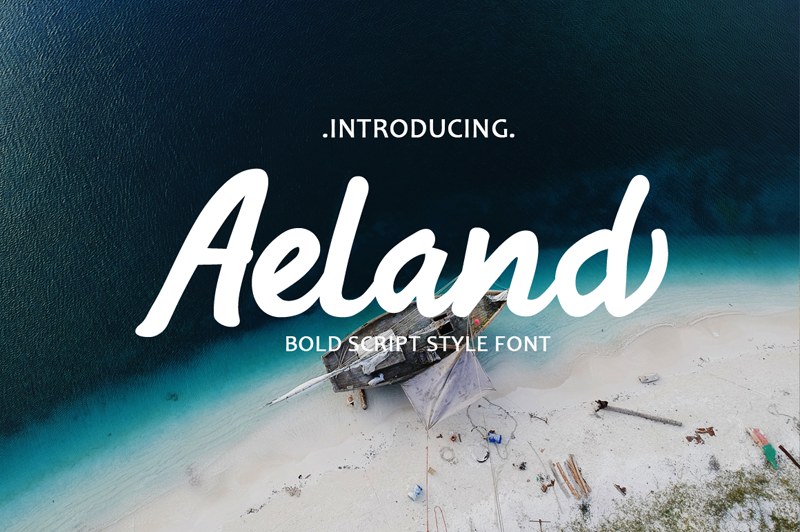
Aeland Script Font
Aeland is bold script typeface. Aeland Typeface a beautiful for wedding card design, logotype, website header, fashion design and any mor